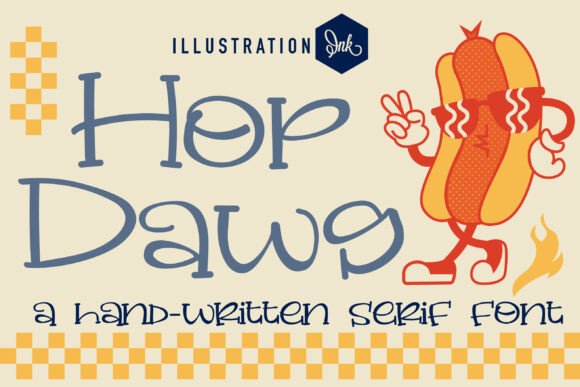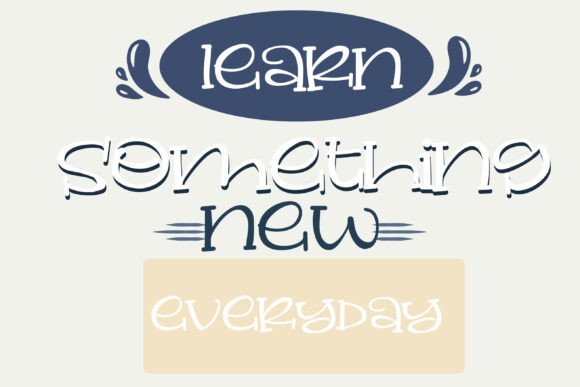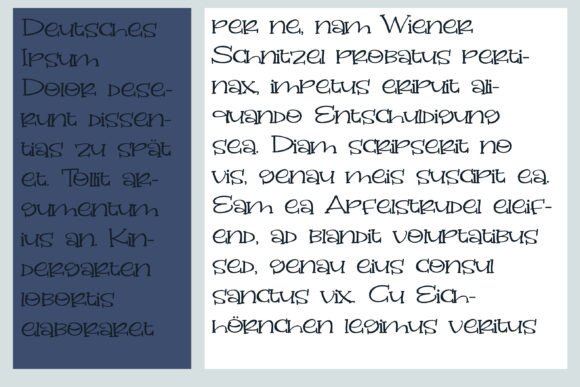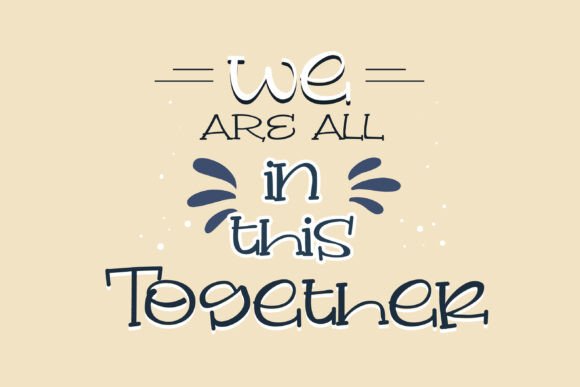
Hop Dawg Font
About the Hop Dawg Font
Meet Hop Dawg Font, a stunning font that brings a touch of elegance and professionalism to any design. This hand-crafted font is a whimsical print with hand-crafted slab serifs throughout.
Hop Dawg’s playful, yet slightly rugged character makes it ideal for headlines, short bursts of text in branding materials, posters, and packaging design, particularly for products targeting a younger demographic or those with a rustic/handmade aesthetic. Avoid using it for body copy or UI elements; its whimsical nature doesn’t lend itself well to readability in extended text.
Pairing Hop Dawg with a clean sans-serif like Open Sans for body text provides excellent contrast and enhances readability. For a more sophisticated feel, consider pairing it with a classic serif like Garamond or a slightly more modern geometric sans-serif like Montserrat.
The font’s overall personality is best described as friendly and approachable, with a touch of Western charm. This makes it a strong choice for brands focused on craft, outdoors, or food and beverage.